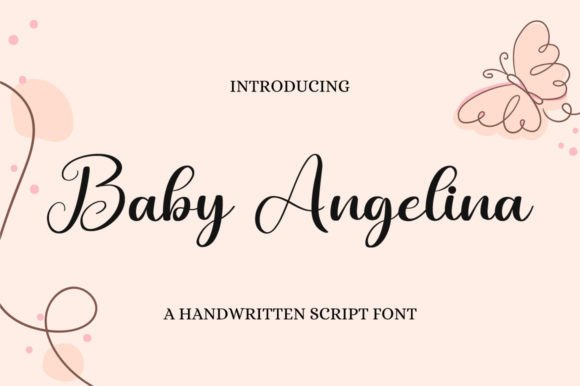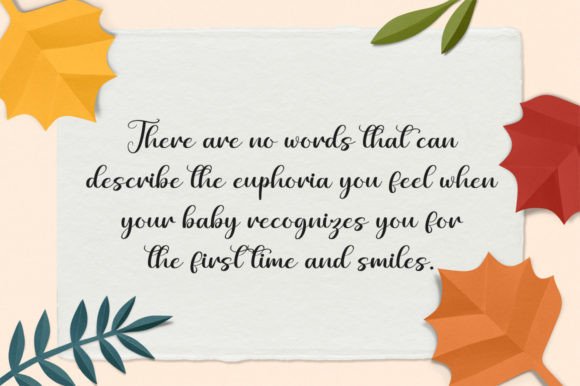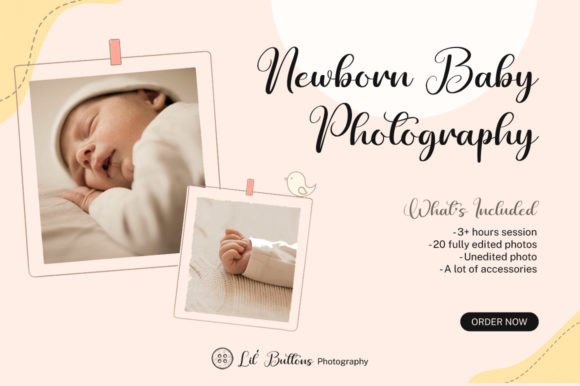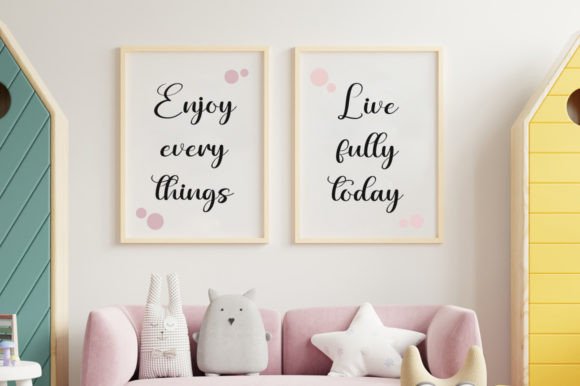
About Baby Angelina Font
Baby Angelina is a lovely and timeless handwritten font. It is the best choice for creating eye-catching logos, branding, and quotes. This font is PUA encoded, which means you can access all of the glyphs and swashes with ease!